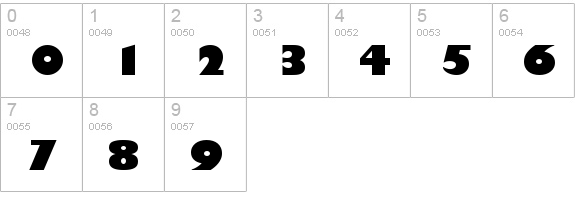
GilbertUltraBold Font Details
GilbertUltraBold is a striking and bold font that exudes confidence and power. Its thick strokes and clean lines make it perfect for making a statement in any design project. Whether you're looking to create eye-catching headlines, impactful logos, or attention-grabbing posters, GilbertUltraBold is sure to command attention. What's even better is that GilbertUltraBold is available for free download at FontsMarket.com. This means you can easily access this powerful font and incorporate it into your designs without any cost. Don't miss out on this fantastic opportunity to enhance your projects with the bold and impactful GilbertUltraBold font. Download it now and make your designs stand out from the rest.